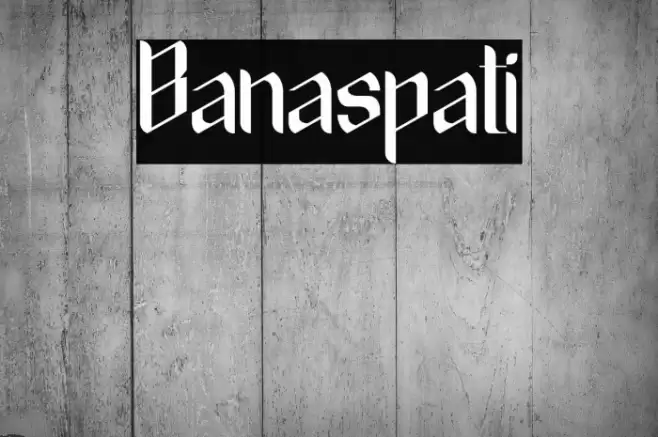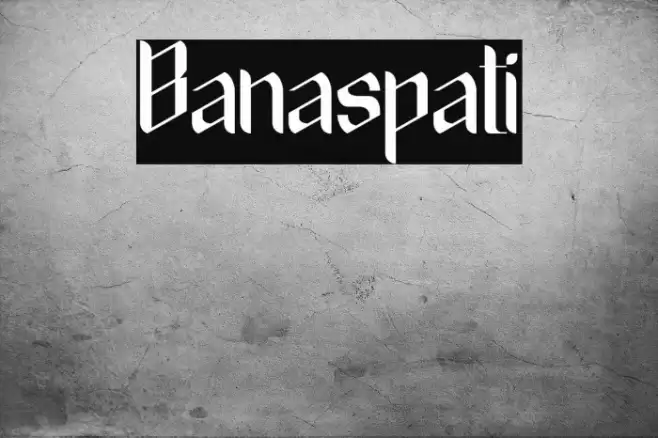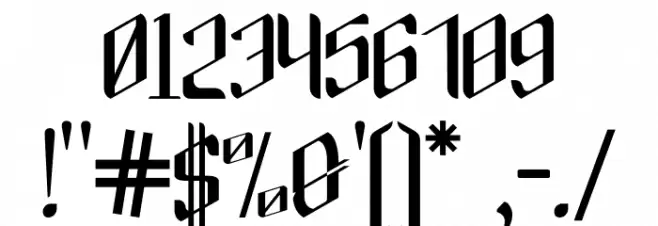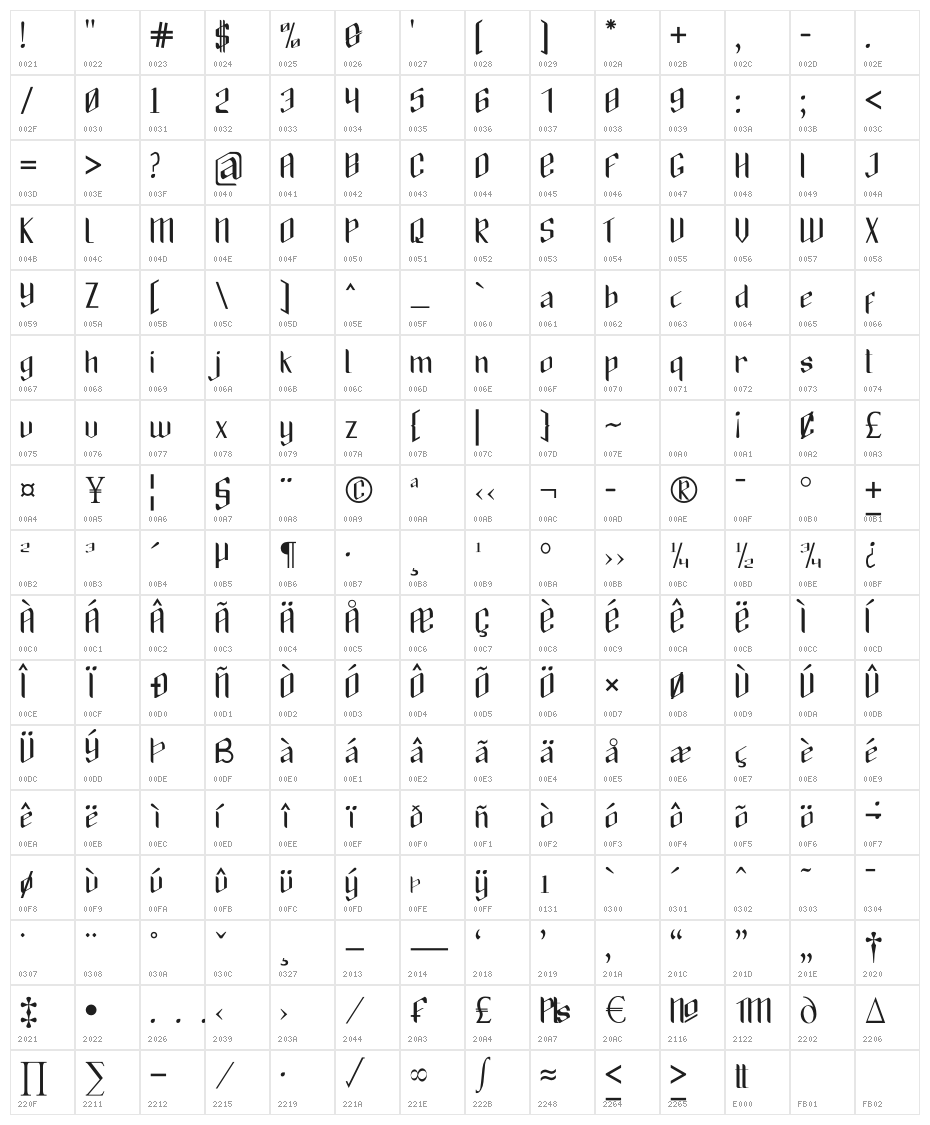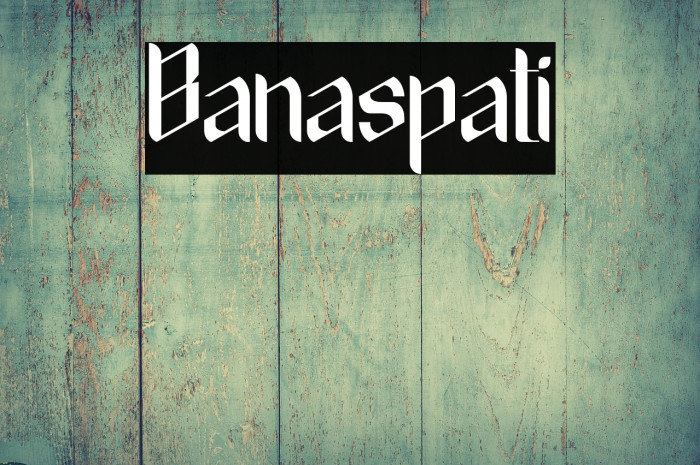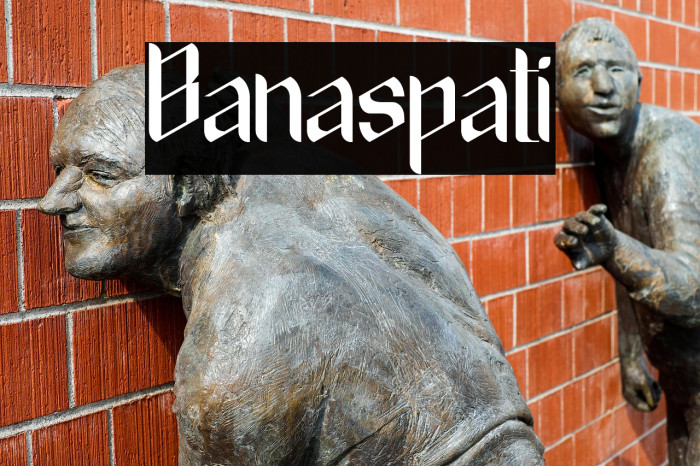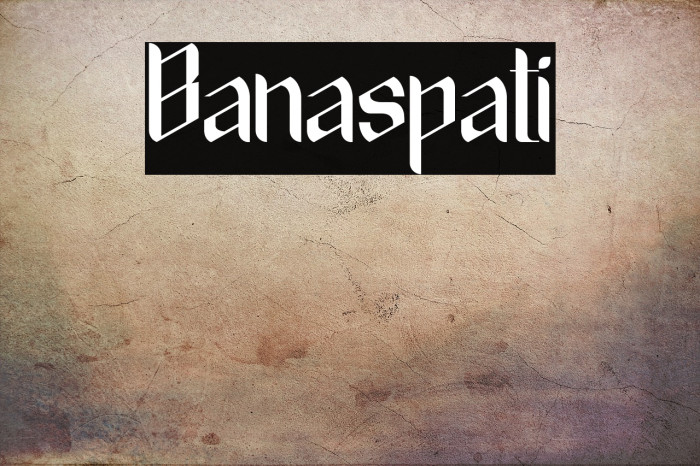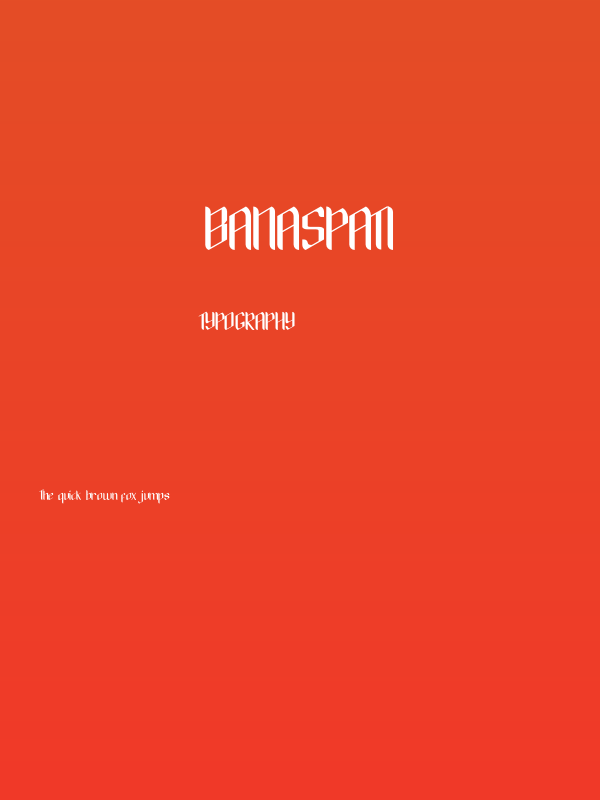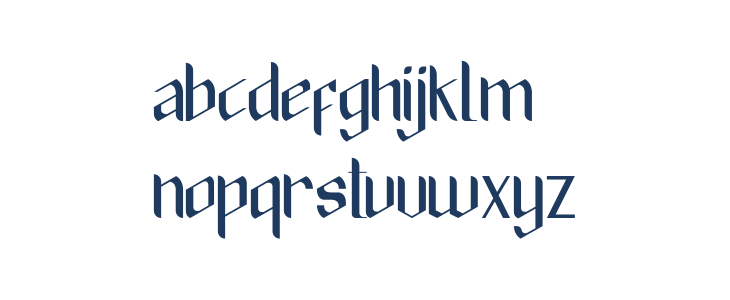
Banaspati Font
Banaspati Description
This font features a bold and angular design with a distinct geometric influence. The characters are sharply defined with a high contrast between thick and thin strokes, giving it a dynamic and edgy appearance. The uppercase letters are particularly striking, with a strong presence that commands attention. The lowercase letters maintain the angular style, providing a cohesive look across the typeface. Numbers and special characters are designed to match the bold and geometric style, ensuring consistency throughout. The overall aesthetic is modern and assertive, making it suitable for impactful designs.
A bold, angular font with high contrast and geometric influences from Uncategorized fonts.
- Proposed Projects: Ideal for branding, poster designs, album covers, and any project requiring a bold, modern statement.